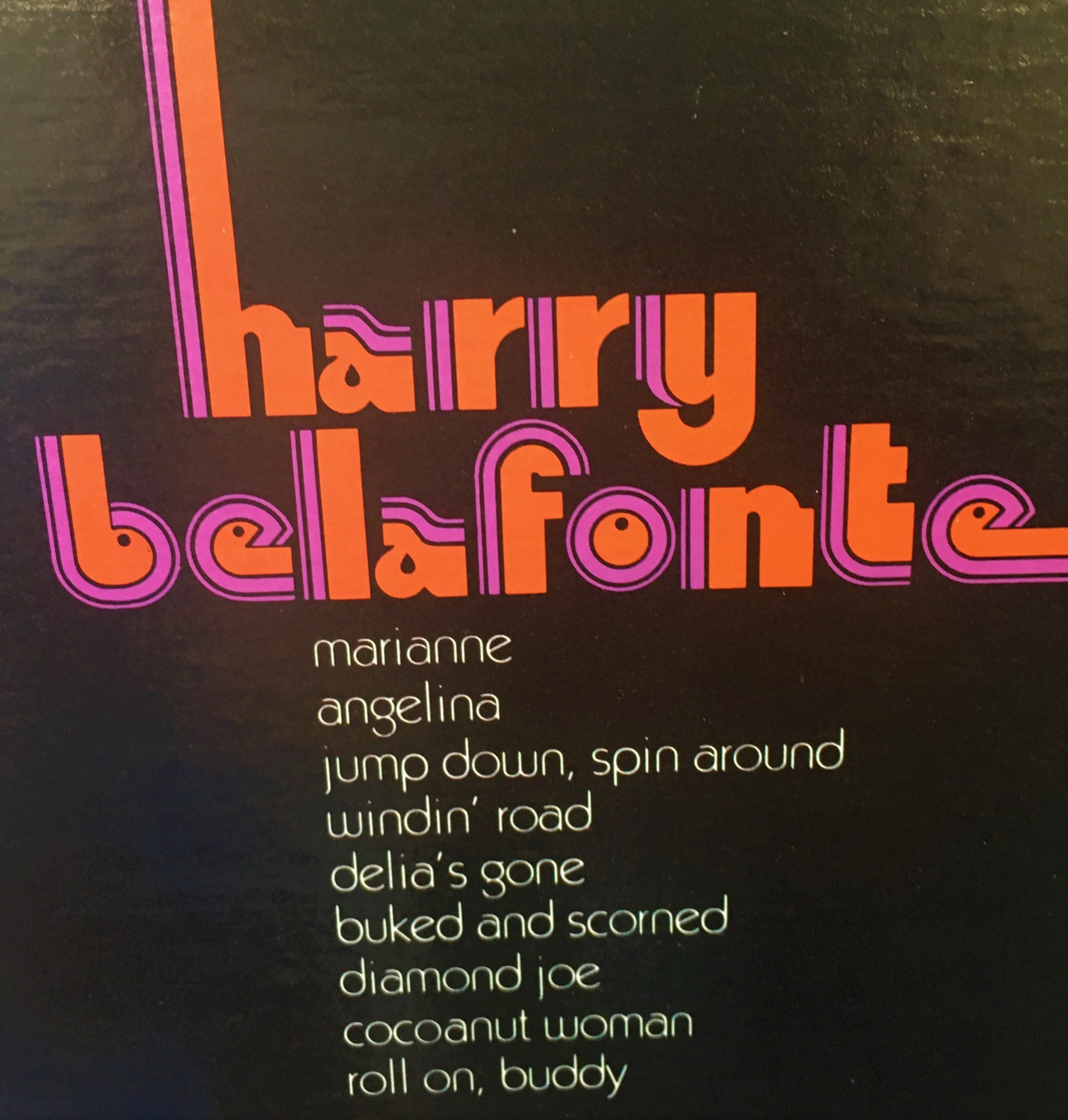
While I was at Value Village in March, I found an unusual font that was used for a compilation record. It was a novelty tri-line face in a chromatic form, that pairs with the rounded lightweight Kabel for the tracklisting.
This album was released in 1973. The Kabel-like sans is Slenderella Refined. The triline style doesn’t ring a bell for me. I wouldn’t be surprised if it was custom lettering. Can’t rule out a short-lived photo typeface either.